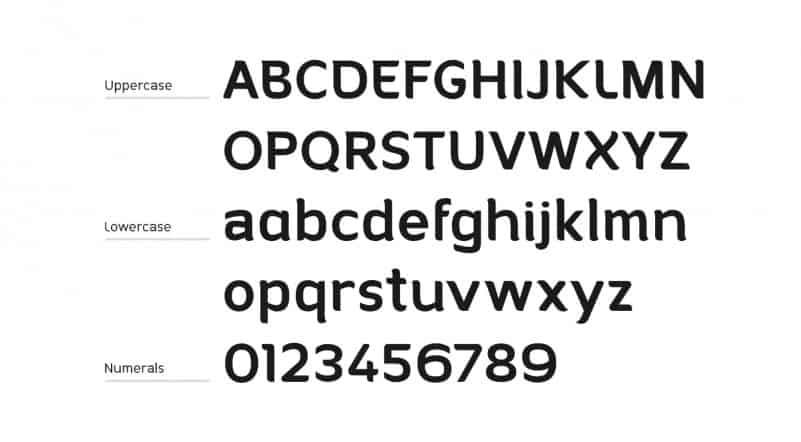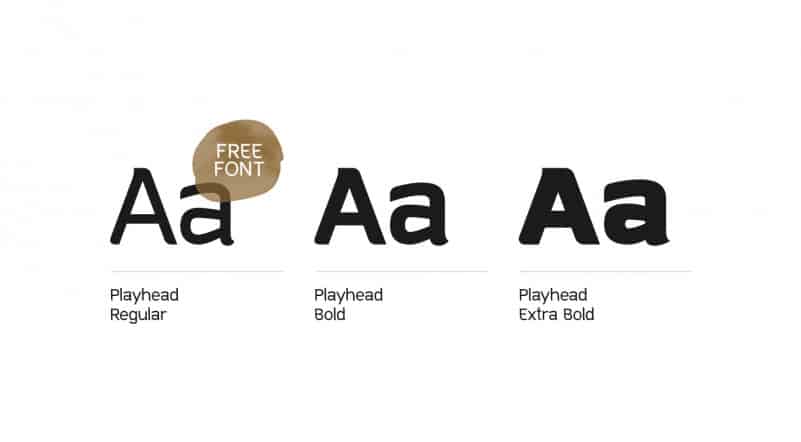
Playhead Serif Font
Introducing Playhead Serif Font – is a playful font yet elegant serif. It teases your eyes with its curves yet still able to maintain its classy composure. Perfect for anything your creativity takes you. Playhead Serif Font is a brand new small serif, playful typeface. This font comes in three weights, Playhead Regular, which is free and his chubbier other two alternatives Playhead Bold and Extrabold. This font was designed to be decorative, natural and versatile with a jolly touch, that`s why its characters have rounded corners and a small decorative serif simulating pen strokes. Playhead has uppercase and lowercase characters, a number of 63 glyphs per each font and standard Latin script support with numerals. The font is perfect for for movie title, logo, blogging, brand identity, book title, social media, branding, wedding invites, cards or simply use it in your next design project and suitable to use for many occasion.